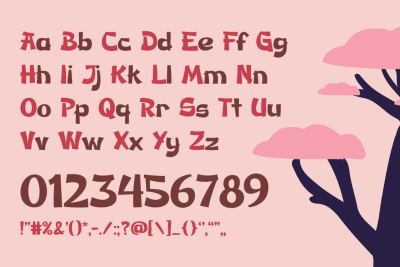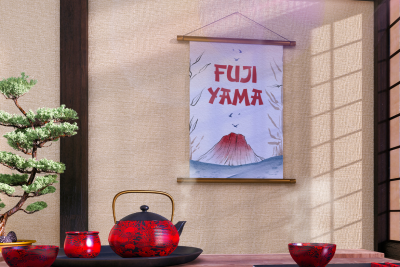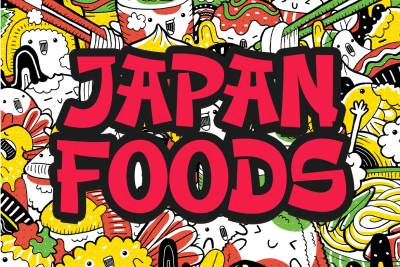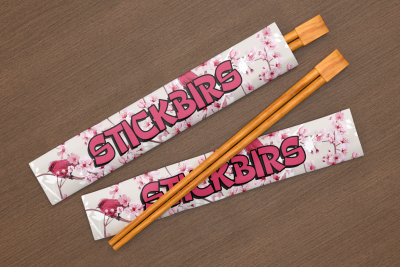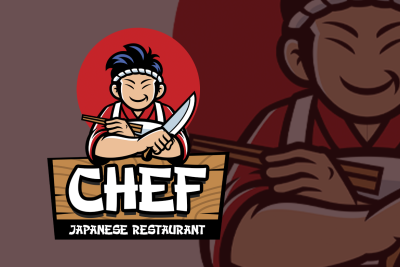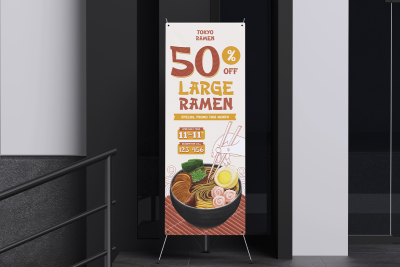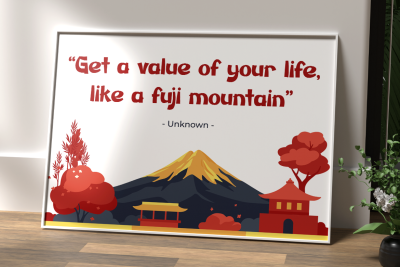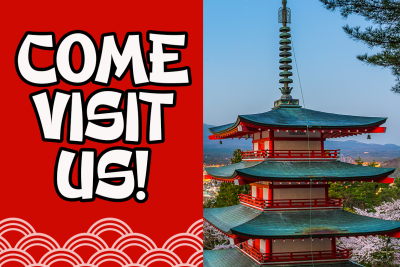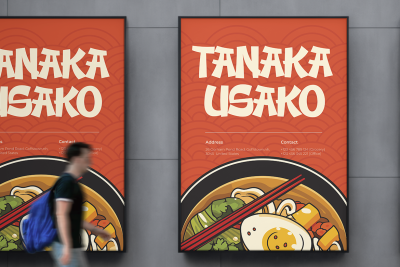
Japanese Font SAKUNA is a bold and expressive typeface inspired by traditional Japanese aesthetics and calligraphy. With its striking brush strokes and dynamic letterforms, SAKUNA beautifully captures the essence of Japanese culture while maintaining a modern appeal. Moreover, its bold, angular design brings energy and elegance, making it ideal for designs that need an authentic yet contemporary Japanese touch.
Designed with a balance of tradition and modernity, SAKUNA creates impactful visuals. Whether for branding, posters, or digital content, this font instantly enhances aesthetics with its distinctive style. Furthermore, its unique structure gives a handcrafted feel, making it suitable for projects requiring a strong cultural presence. If you seek to add Japanโs artistic heritage to your designs, then SAKUNA is the perfect choice.
1. Branding & Logo Design
Japanese Font SAKUNA is ideal for businesses wanting authenticity and elegance. For instance, from Japanese restaurants to cultural stores and fashion brands, it adds a traditional yet modern feel to logos and branding materials.
2. Posters & Advertising
For eye-catching promotional materials, SAKUNA stands out with bold strokes and a distinctive style. Additionally, whether for event posters, travel ads, or artistic promotions, it ensures maximum visual impact.
3. Packaging & Product Labels
SAKUNA enhances product packaging, especially for Japanese food, cosmetics, and artisan goods. As a result, it delivers authenticity and craftsmanship that attract consumers looking for premium, culturally rich products.
4. Digital Content & Social Media
Content creators and designers can use SAKUNA for engaging social media graphics, YouTube thumbnails, and website banners. Consequently, its unique look helps brands stand out in a crowded digital space.
5. Event & Invitation Design
Whether for traditional ceremonies, Japanese festivals, or themed weddings, SAKUNA adds cultural significance to invitations, greeting cards, and event signage. Therefore, it is the perfect addition to any event needing an artistic touch.
Japanese Font SAKUNA is the best choice for those wanting bold, cultural, and artistic elements in their designs. Whether for digital or print use, its distinct style certainly ensures that your message stands out with confidence and authenticity.